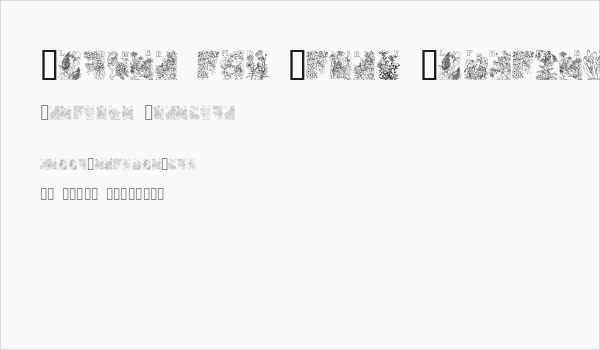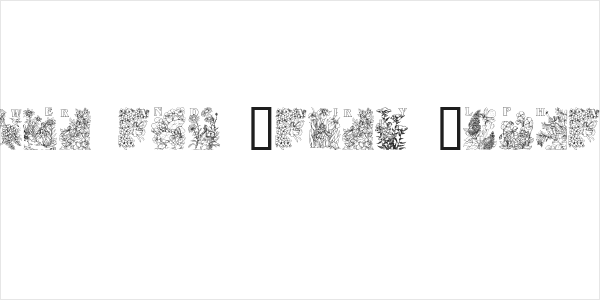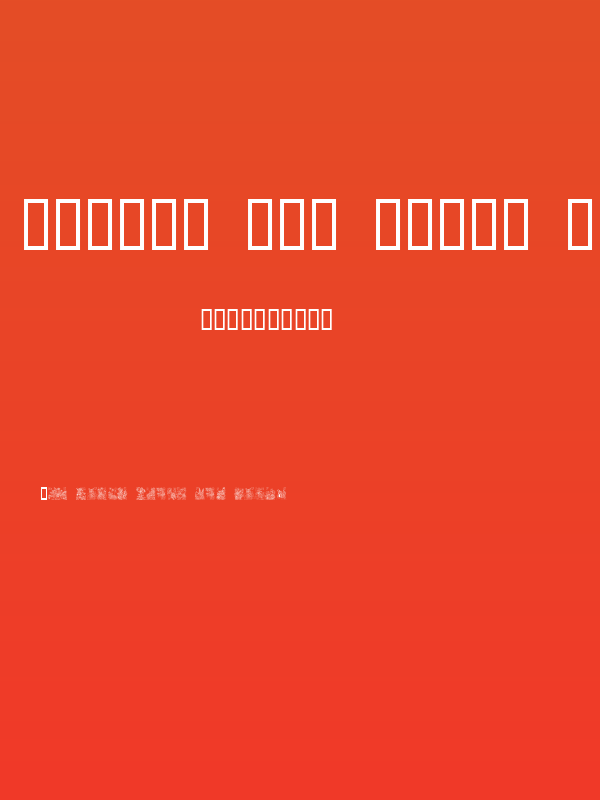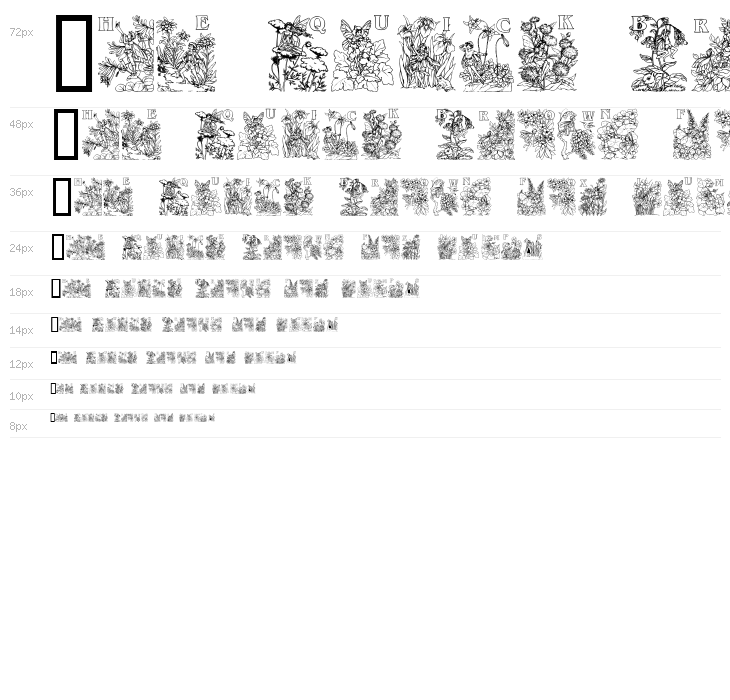
Flower and Fairy Alphabet Font
Flower and Fairy Alphabet Description
This decorative alphabet features intricate designs where each letter is entwined with detailed illustrations of flowers and fairies. The artistic style is reminiscent of vintage botanical illustrations, with each character surrounded by delicate, whimsical elements. The letters themselves are serifed, adding a classic touch to the overall design. The combination of nature and fantasy elements makes this font unique and visually captivating, ideal for projects that require a touch of elegance and enchantment.
| Overall Style | Vintage, Decorative |
| Proposed Projects | Ideal for greeting cards, wedding invitations, fantasy-themed books, and decorative posters. |